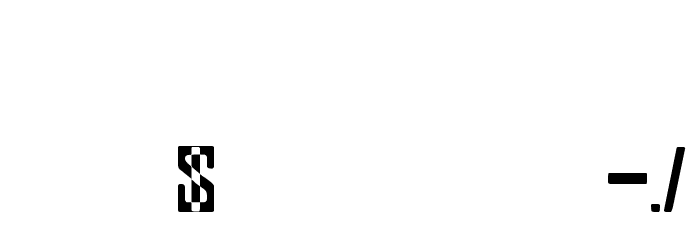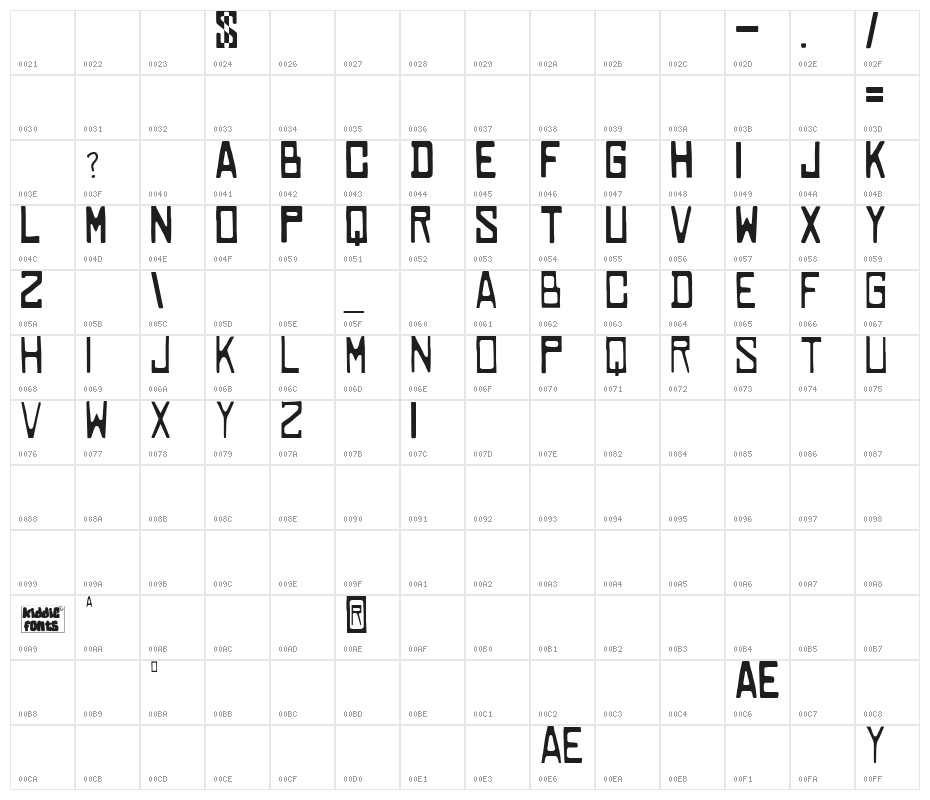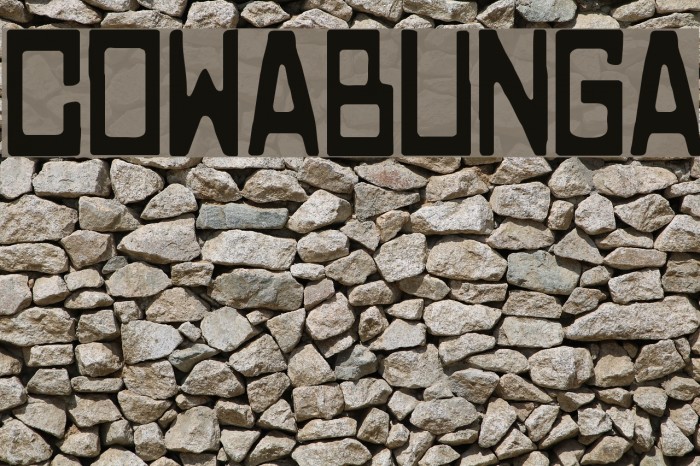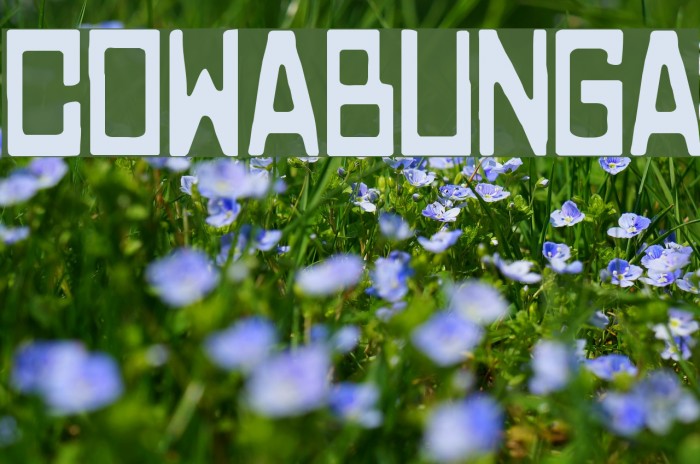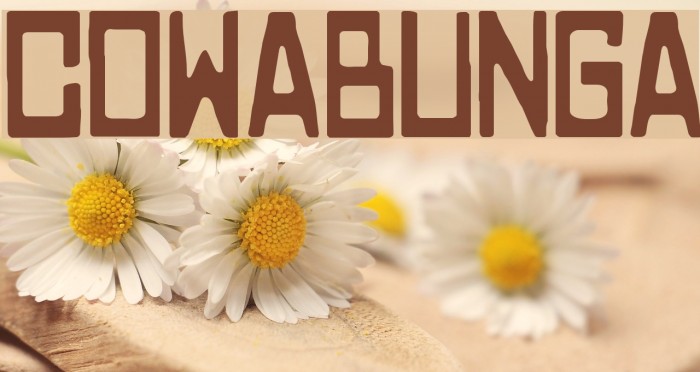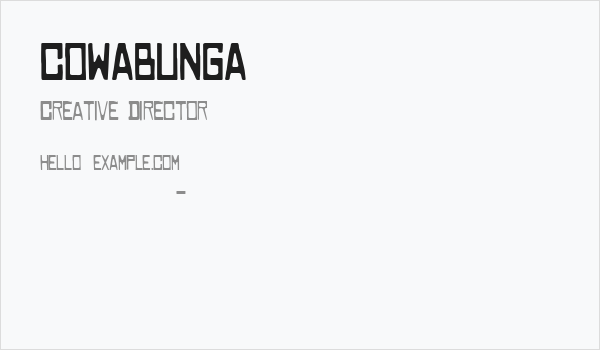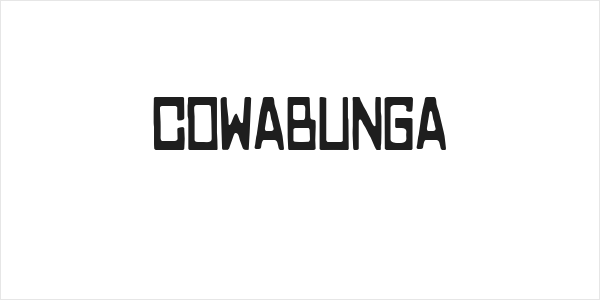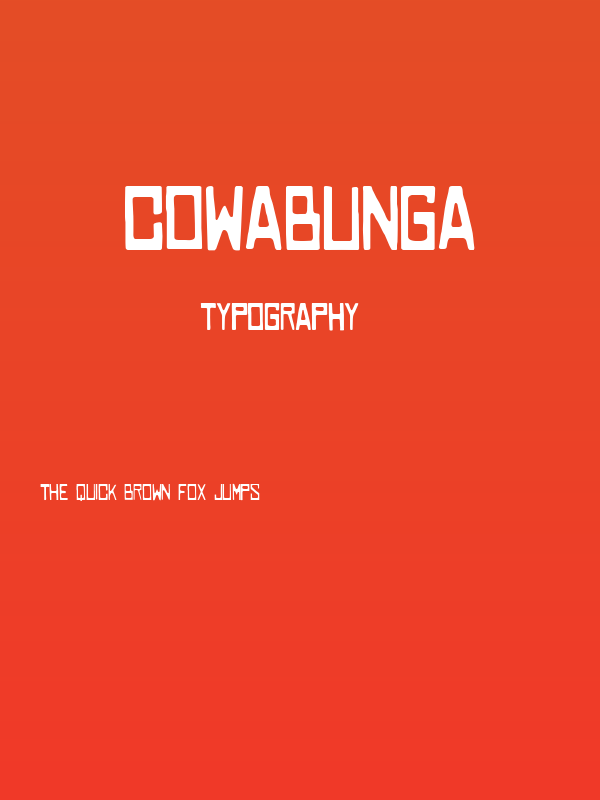
COWABUNGA Font
COWABUNGA Description
This font features a bold and geometric design with a distinctly modern and industrial aesthetic. The characters are constructed with thick, uniform strokes, creating a strong visual impact. The uppercase letters have a squared-off appearance with sharp angles, while the lowercase letters maintain a consistent height and width, contributing to a cohesive look. The font's unique style is further emphasized by its minimalistic approach, with clean lines and a lack of decorative elements. The special characters, such as the dollar sign and punctuation marks, are designed to match the overall boldness and geometric nature of the font, ensuring a seamless integration with the alphabetic characters.